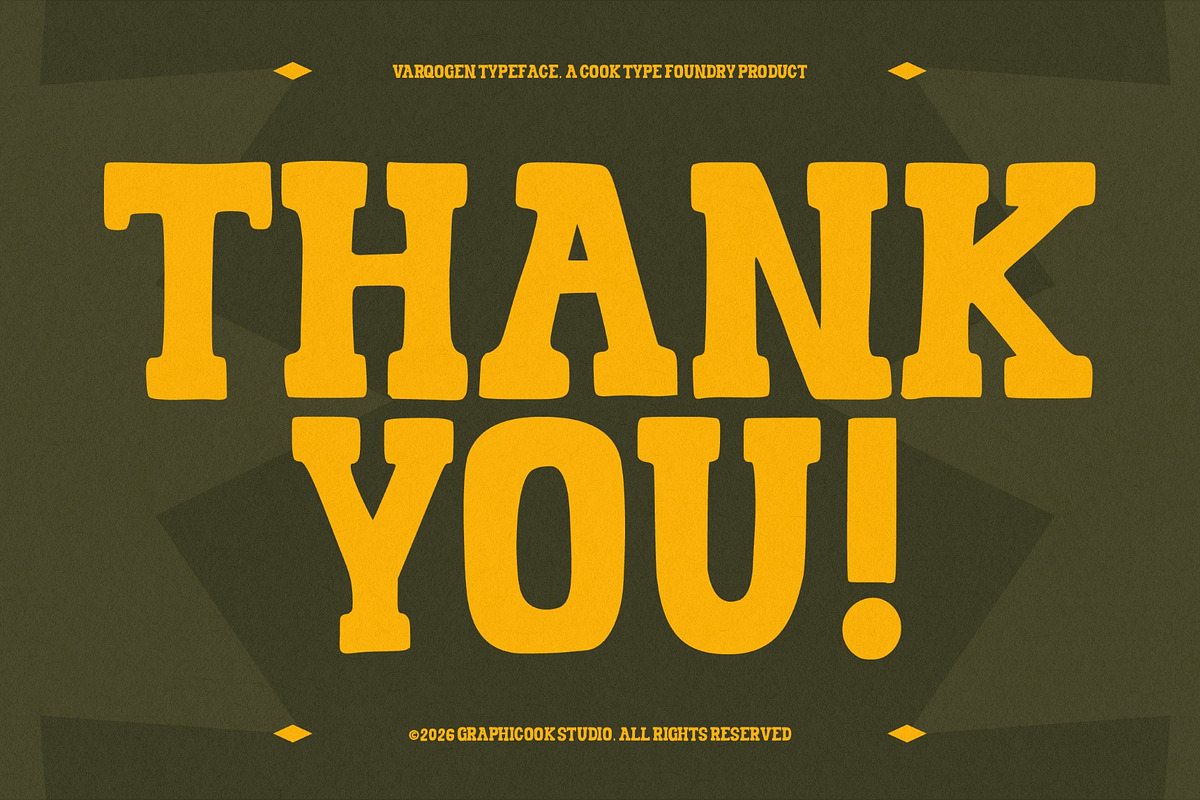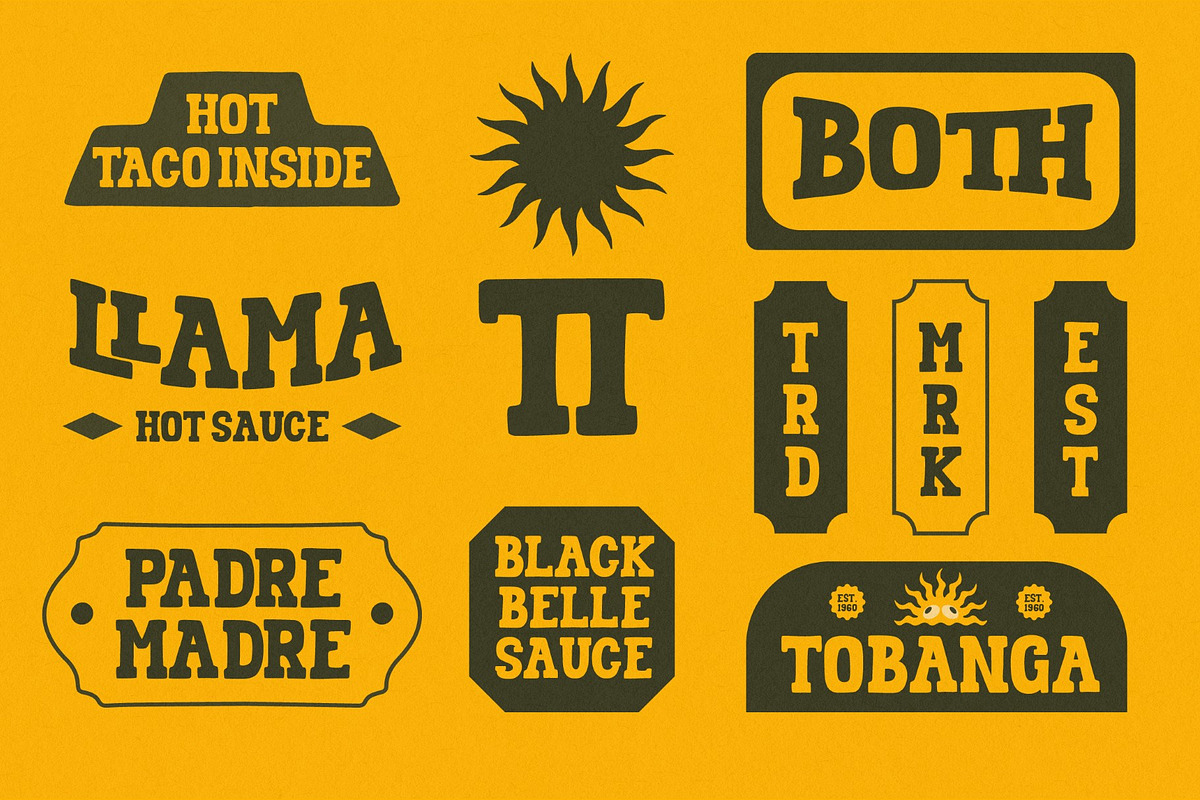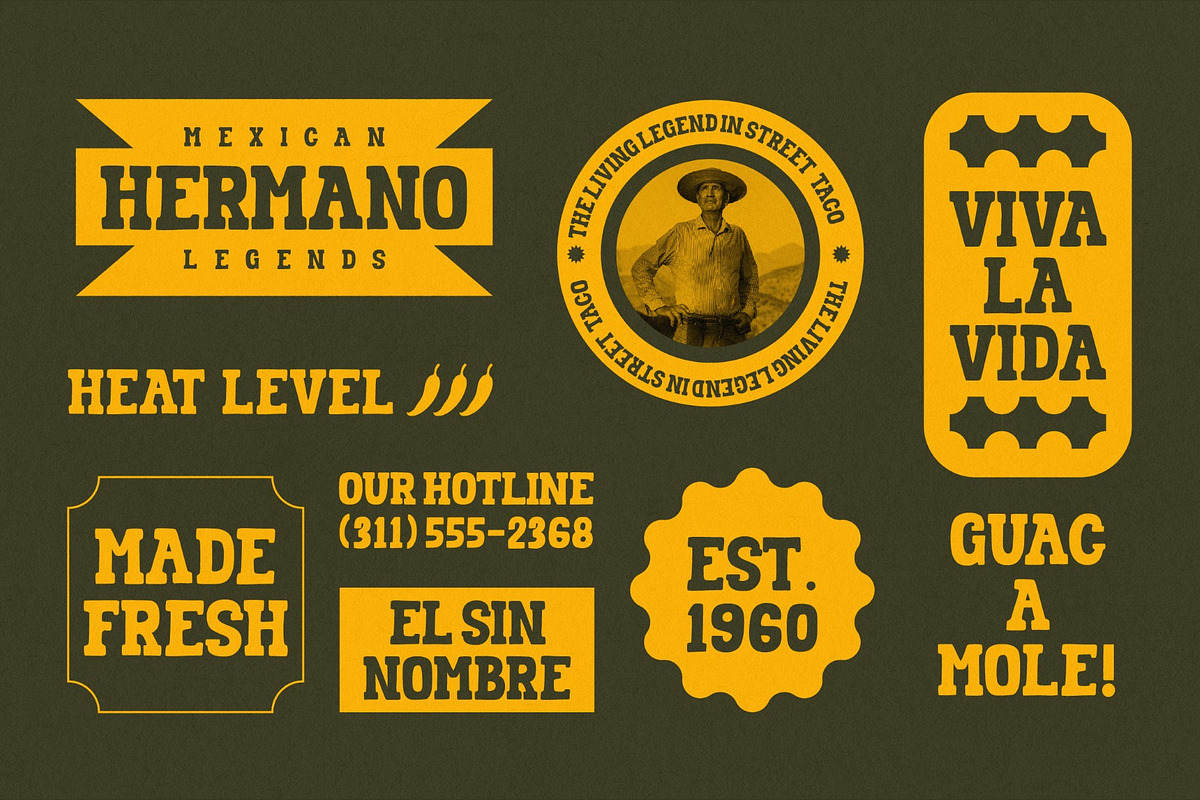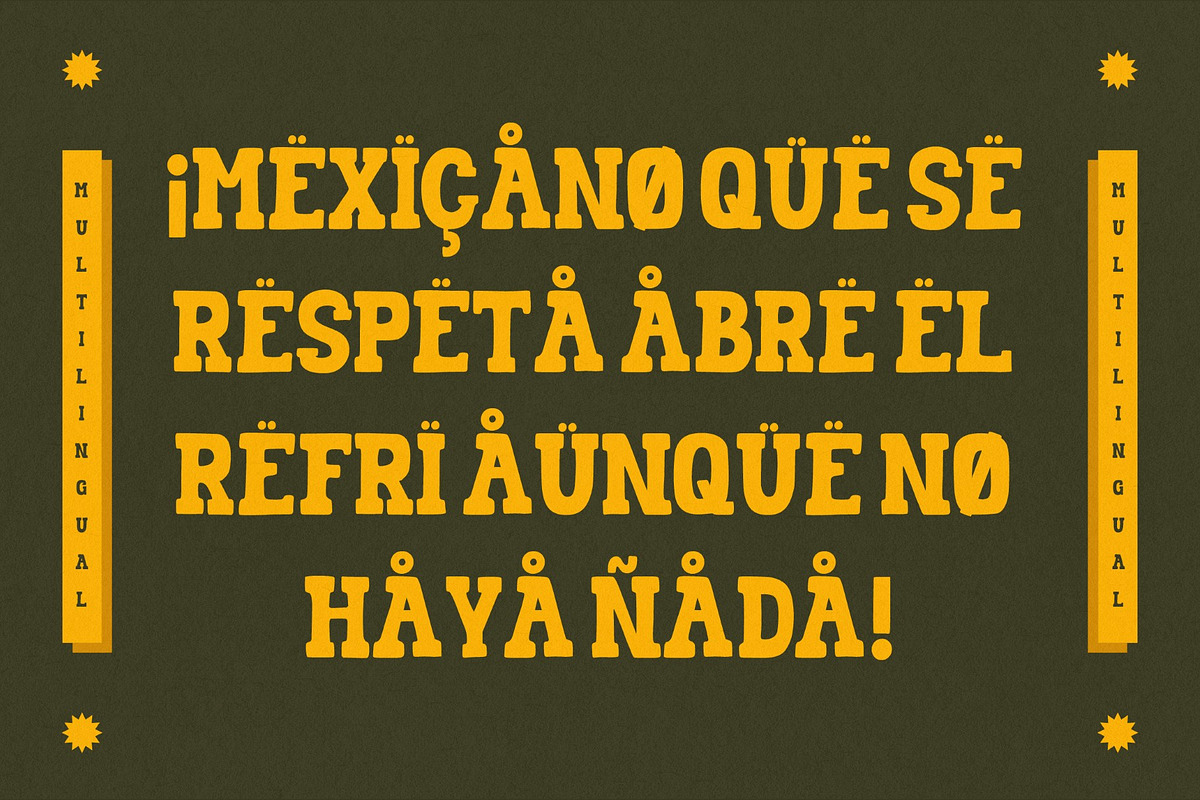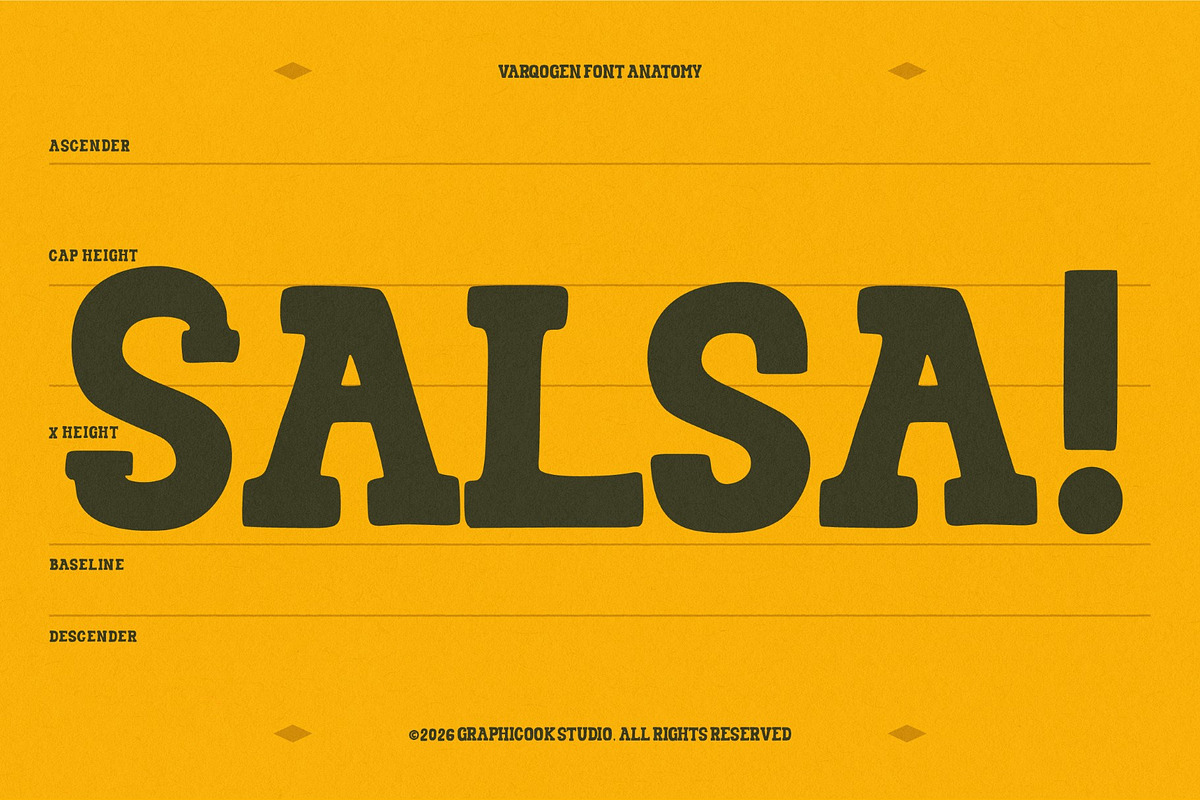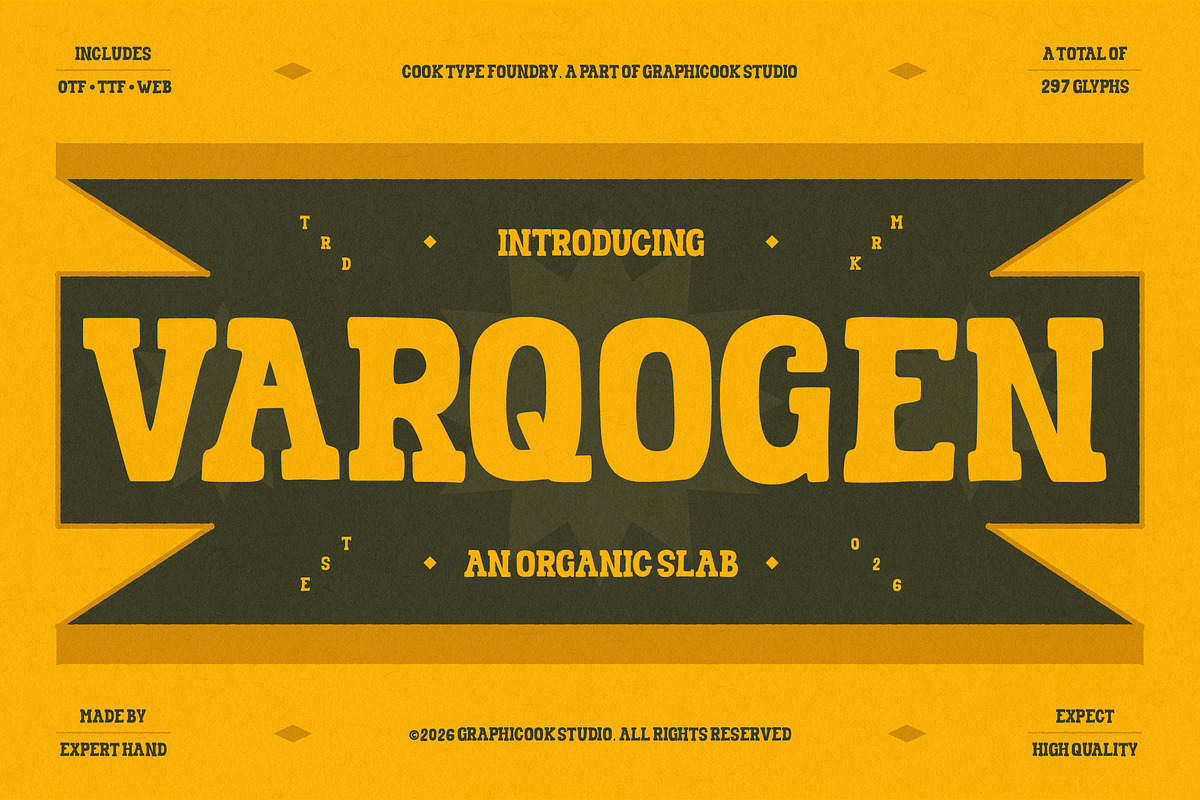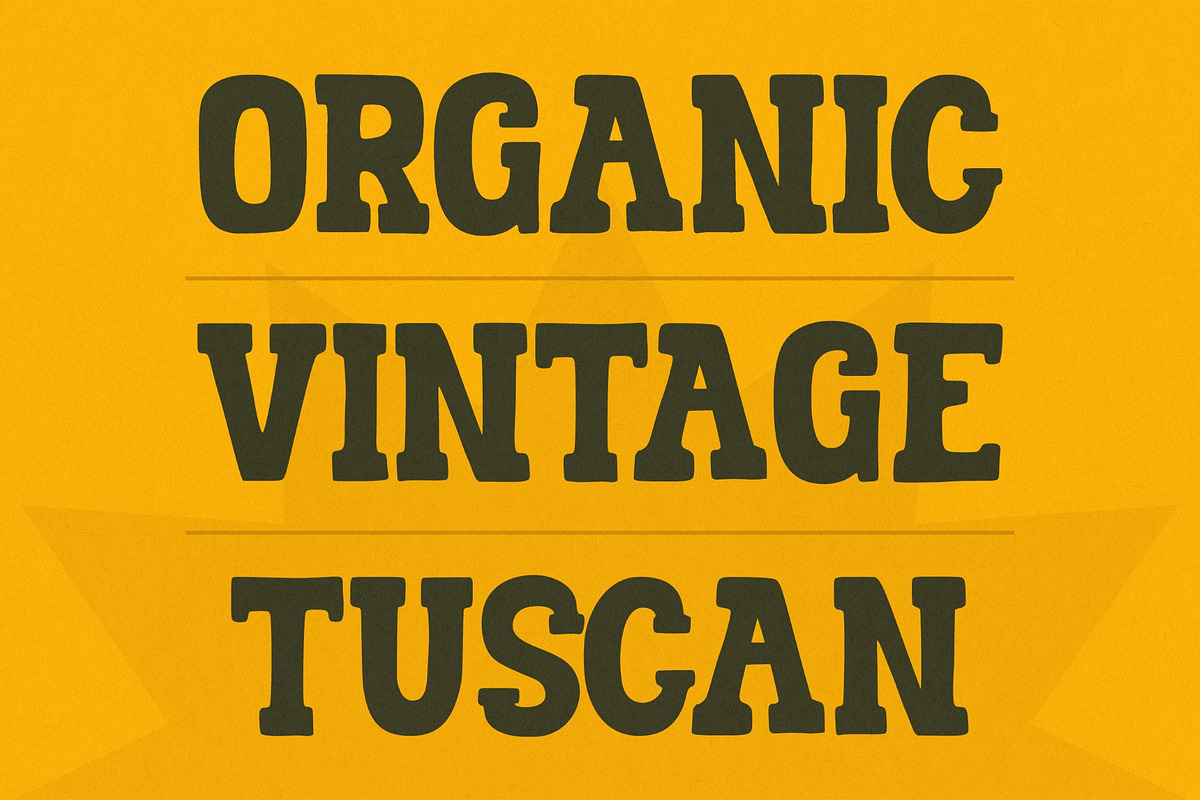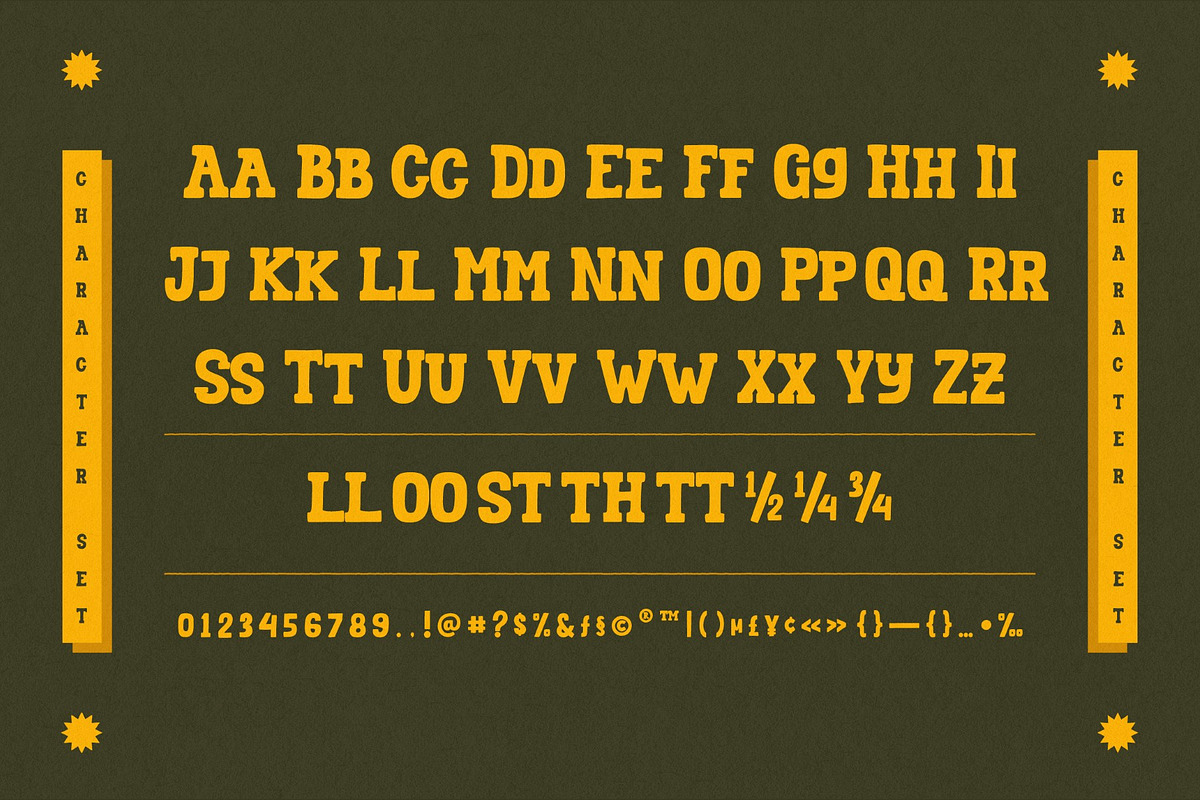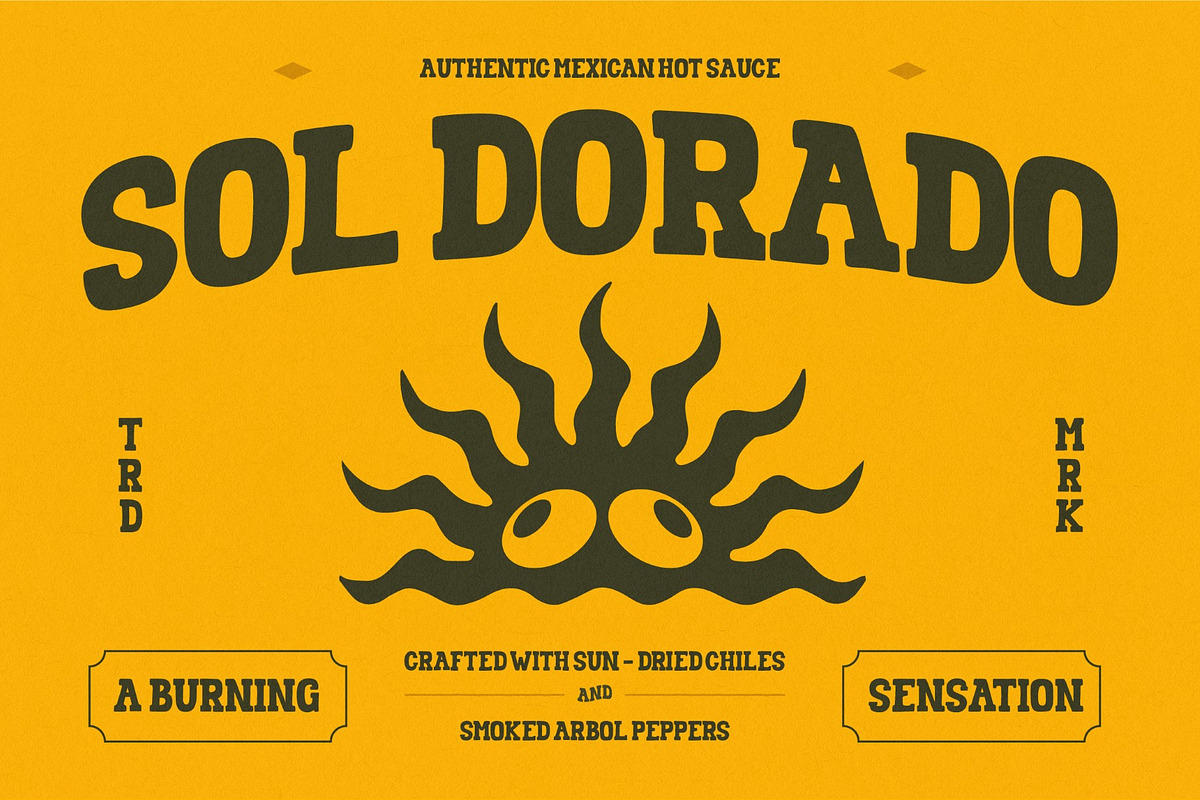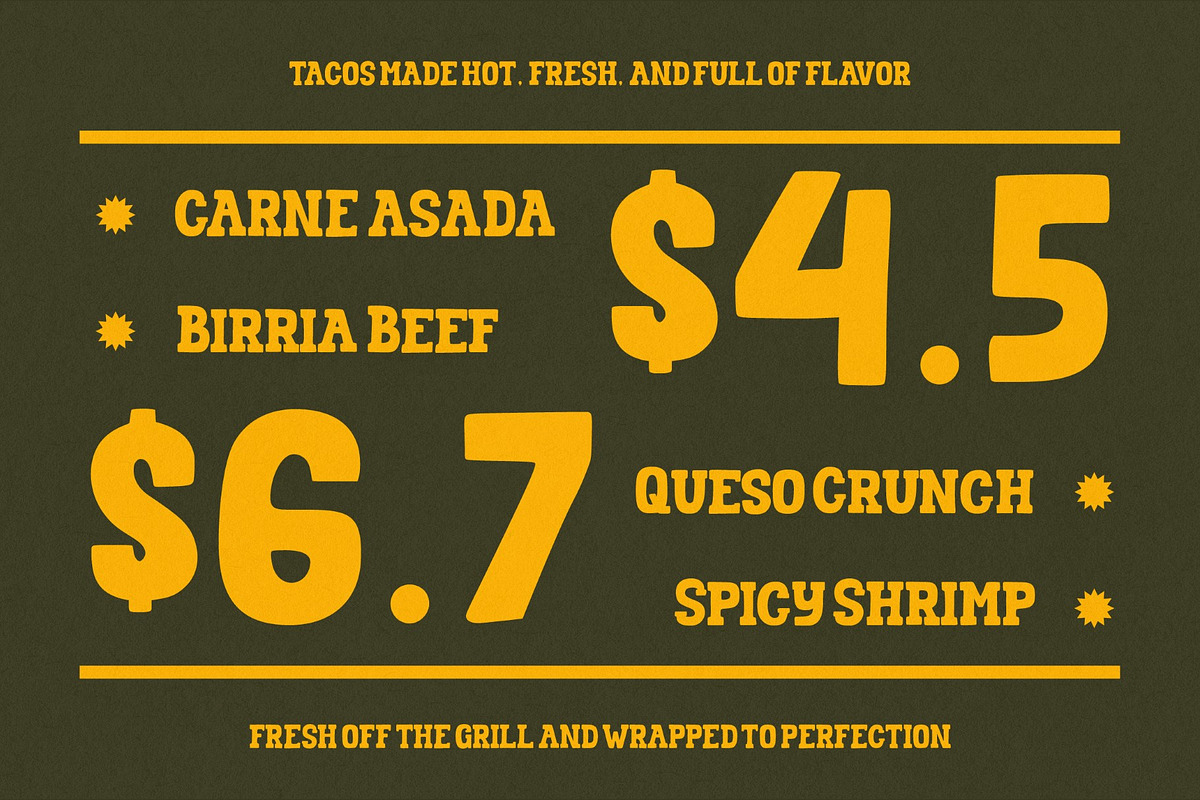
Varqogen
Varqogen is a bold organic slab display typeface that blends vintage craftsmanship with contemporary design. Featuring sturdy slab serifs, soft organic curves, and confident proportions, Varqogen delivers a distinctive personality that feels both timeless and modern.
It is perfect for headlines, logotypes, magazines, packaging, quotes, movies, games, cover albums, book covers, and flyers, it's a perfect solution for creating eye-catching designs that stand out in any context.